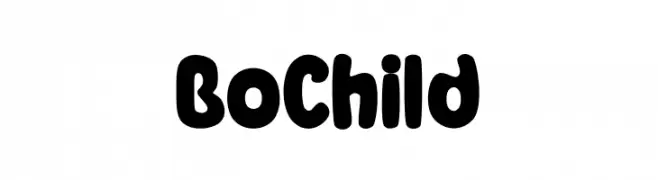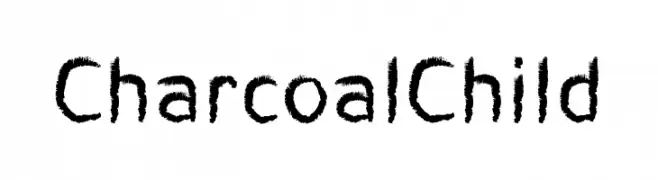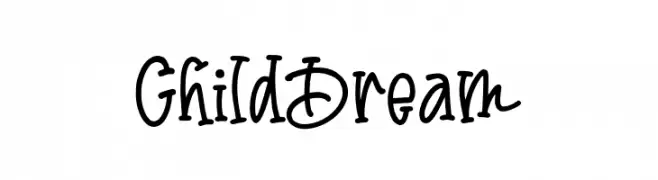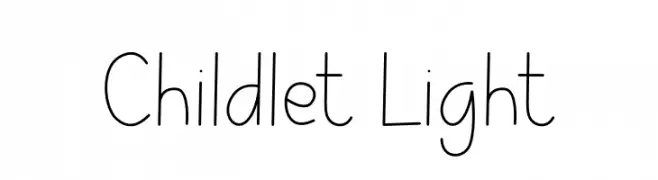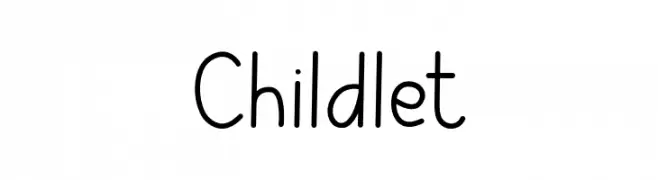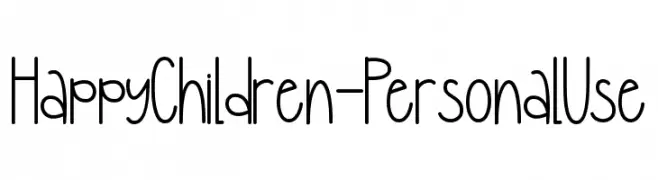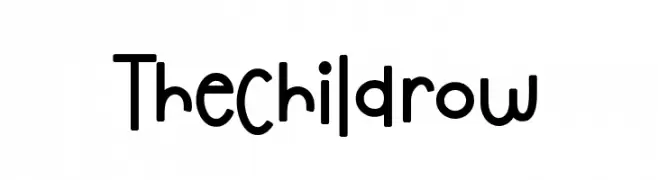
A playful, decorative font featuring whimsical fruit characters.
A whimsical, illustrative font featuring playful scenes with children and toys.
A playful, handwritten font with tall, narrow characters and whimsical decorative elements.
A playful, panda-themed decorative font with cartoonish icons.
A decorative font with each character represented by a detailed animal illustration.
A dingbat font with hand-drawn toy and animal illustrations.
A dotted, educational font ideal for handwriting practice.
A playful font featuring expressive faces in circular outlines.
A whimsical, doodle-like handwritten font with playful embellishments.
A bold, handwritten font with a playful and informal style.
A playful, hand-drawn doodle font with dog-themed illustrations.
An educational font with dotted lines and arrows for teaching handwriting.
A whimsical, curly serif font with a playful, hand-drawn style.
A playful, hand-drawn font with a whimsical and childlike charm.
A playful, hand-drawn font featuring cartoon animal faces and simple shapes.